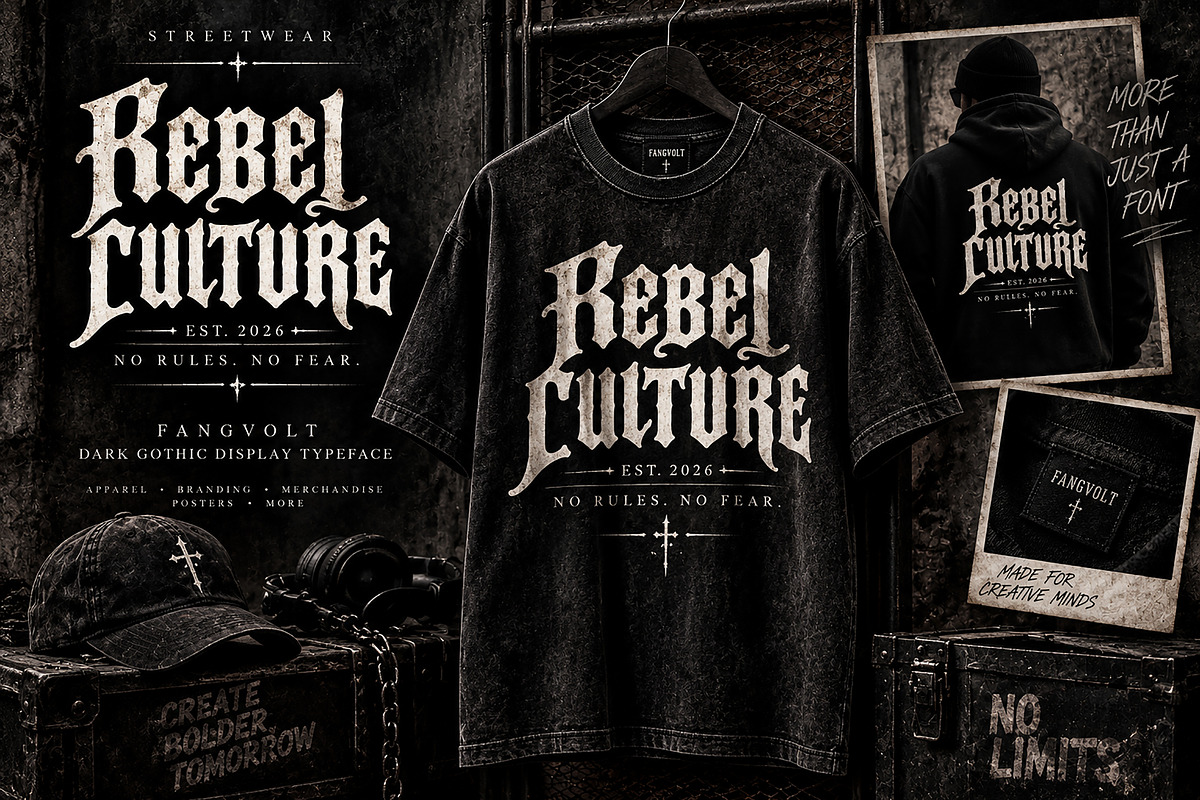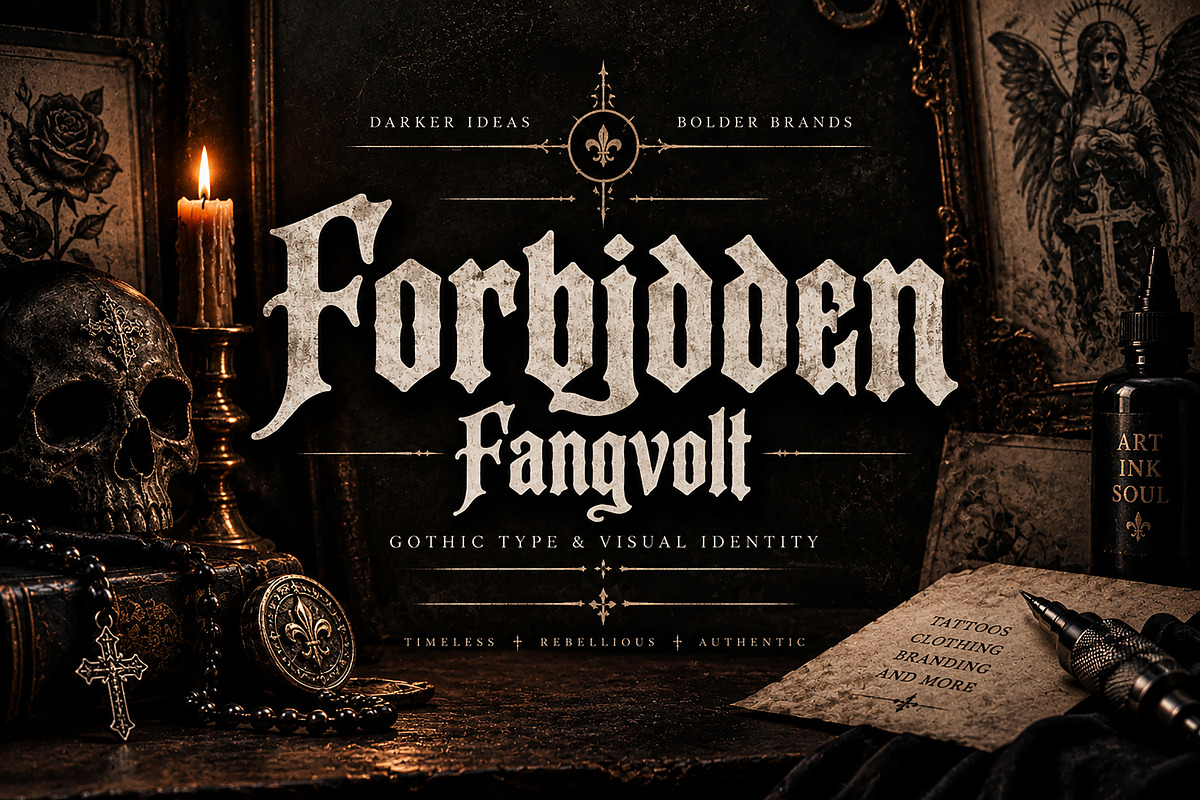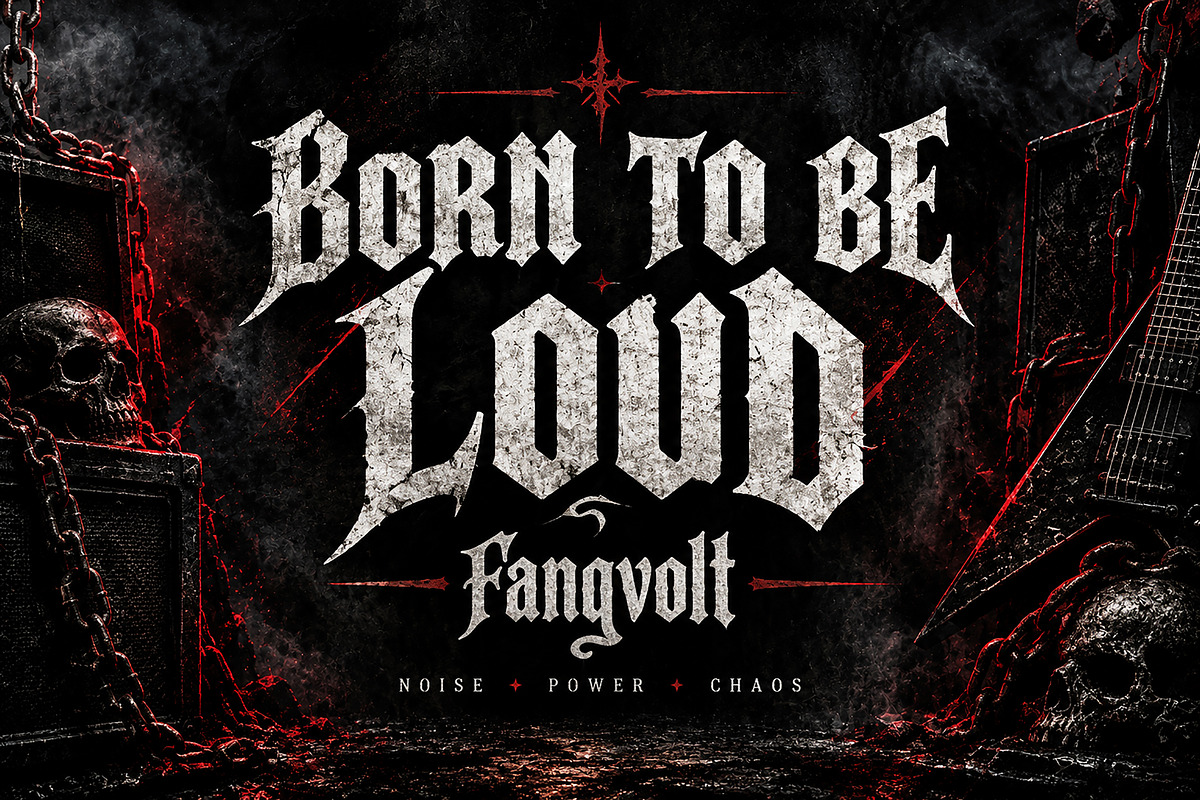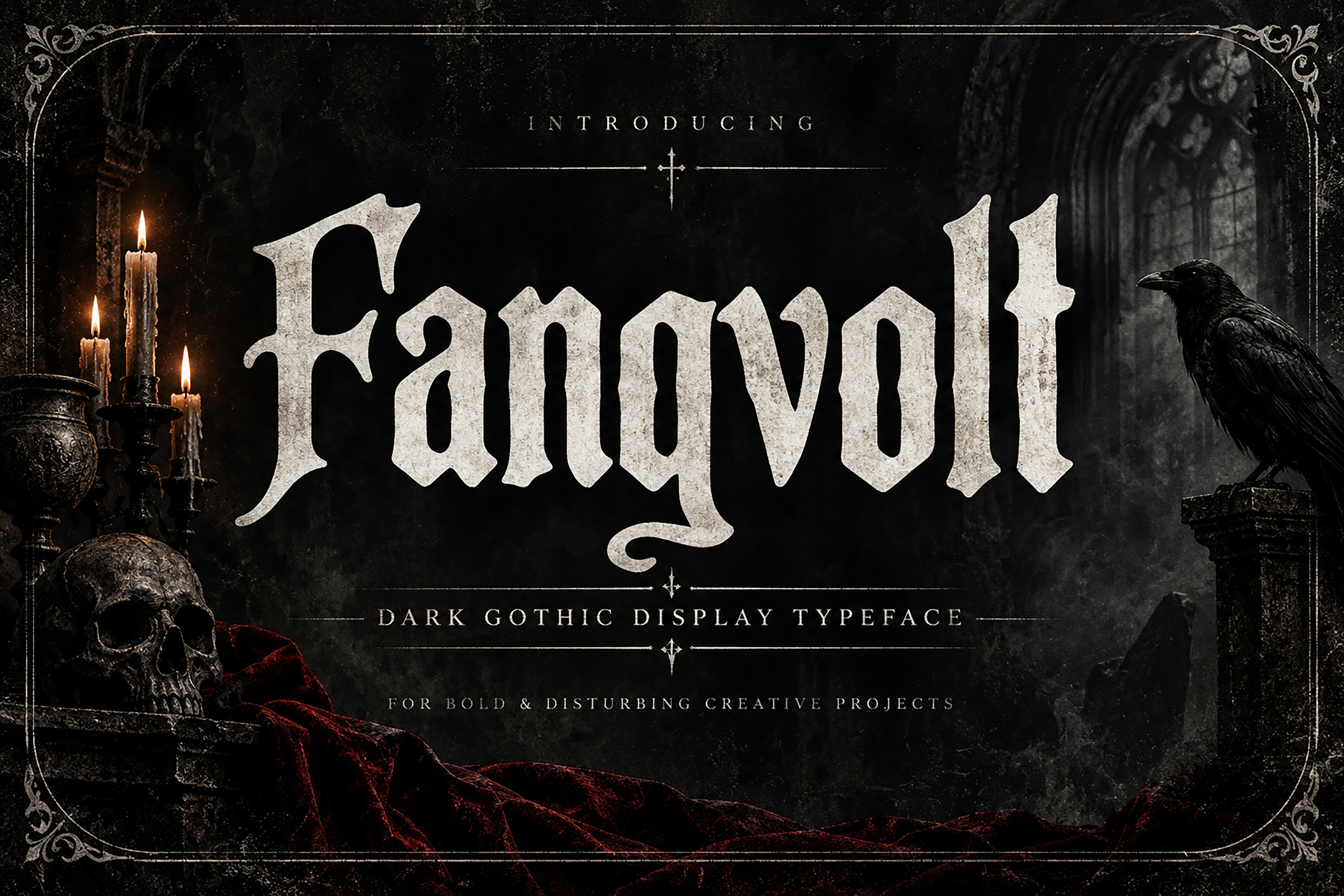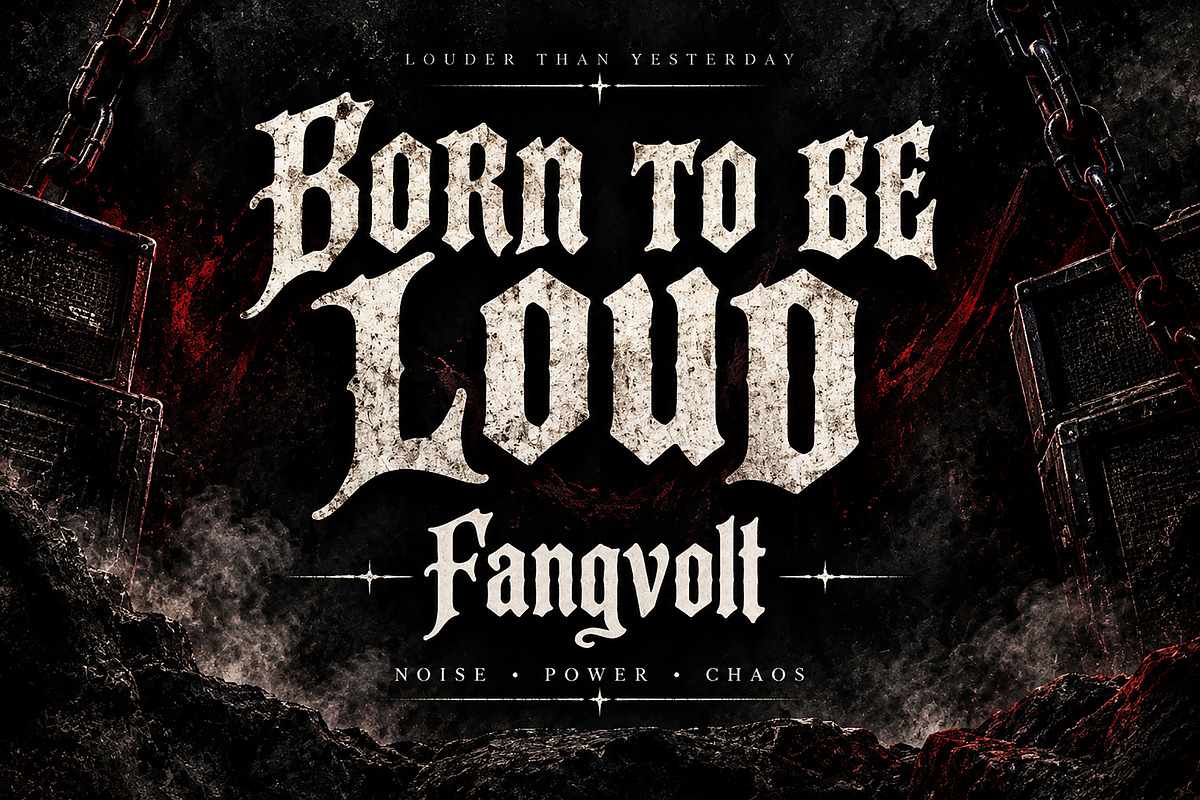
Fangvolt – Dark Gothic Display Font
Fangvolt is a bold and expressive gothic display typeface designed to bring a dark, rebellious, and powerful character to your creative projects. With its dramatic blackletter-inspired forms, sharp details, distinctive proportions, and striking visual presence, Fangvolt is made to instantly capture attention.
Perfect for designers looking to create memorable logos, branding, album artwork, band graphics, posters, apparel, T-shirt designs, tattoo-inspired artwork, packaging, labels, badges, and other bold visual projects.
Its strong and distinctive letterforms work especially well when you want a design to feel dark, edgy, mysterious, vintage, rebellious, or powerful.
Gothic & Dark Branding
Logo & Identity Design
Metal & Rock Artwork
Band Logos
Album Covers
Concert Posters
Streetwear & Apparel
T-Shirt & Merchandise Designs
Tattoo-Inspired Designs
Posters & Flyers
Labels & Packaging
Badges & Emblems
Creative Display Typography
Font Details
Font Name: Fangvolt
Style: Dark Gothic / Blackletter Display
Fangvolt is built for designs that demand attention—dark, bold, distinctive, and unforgettable.